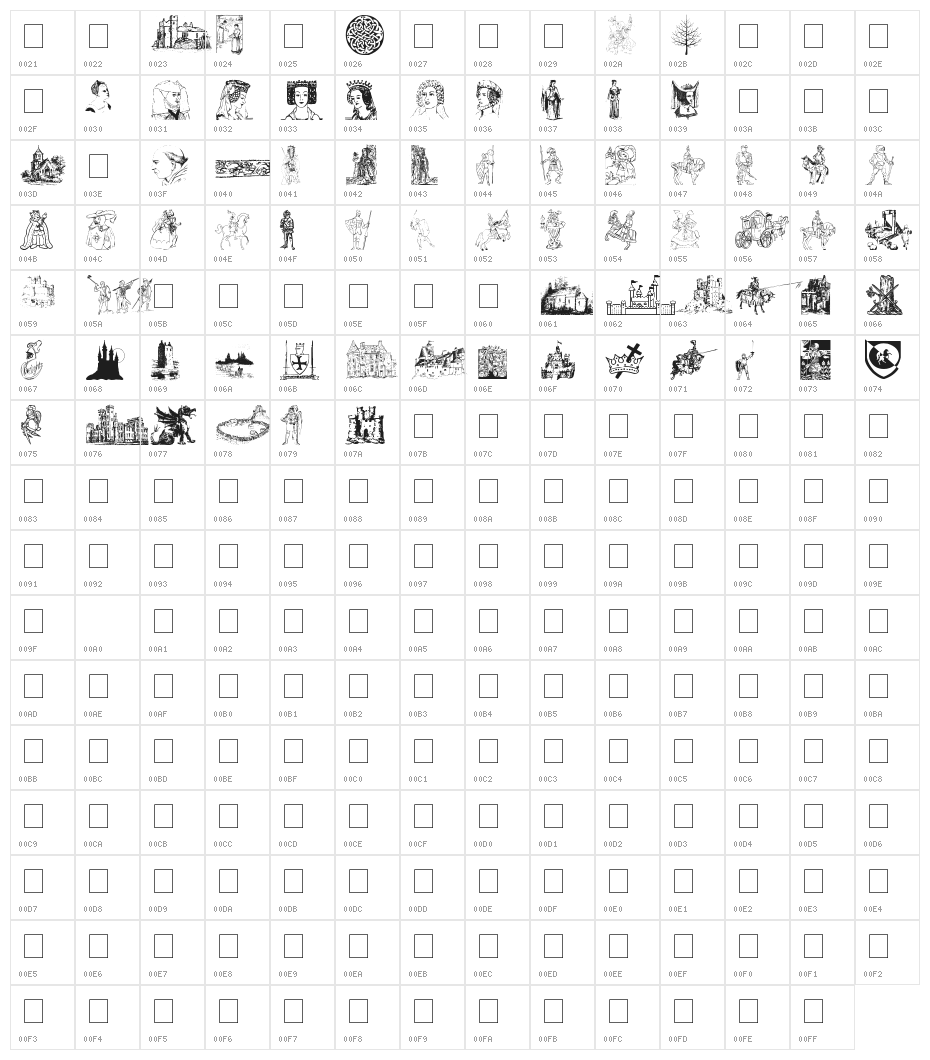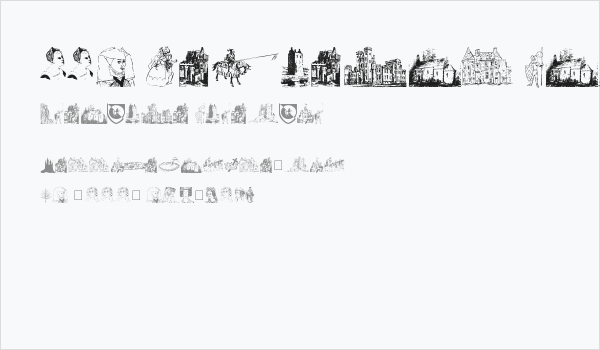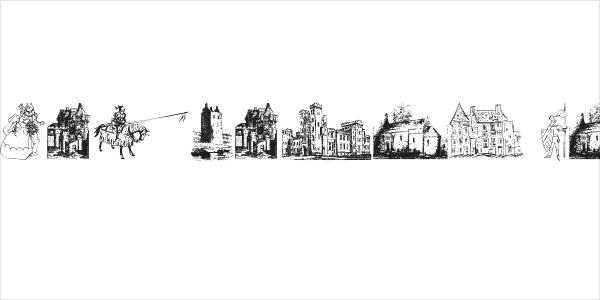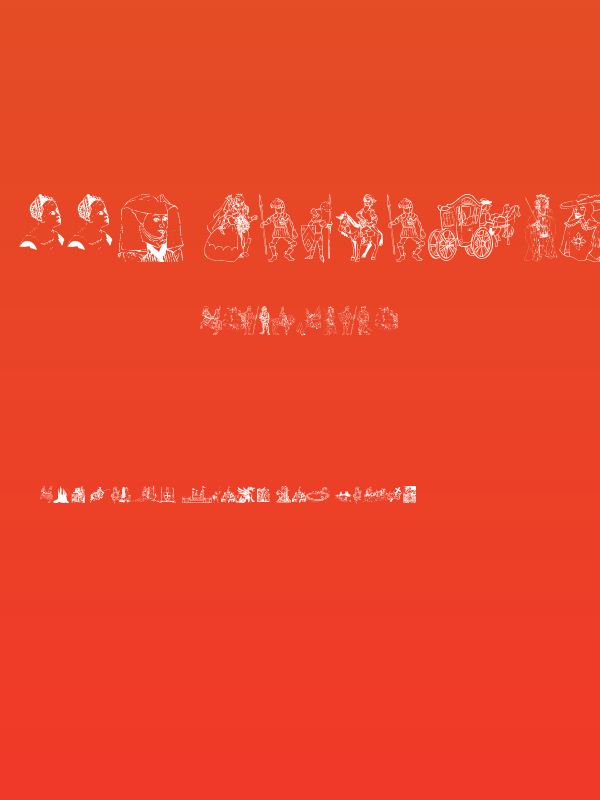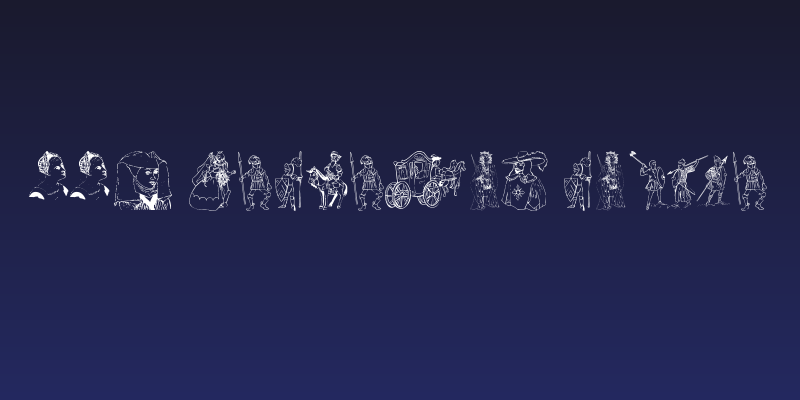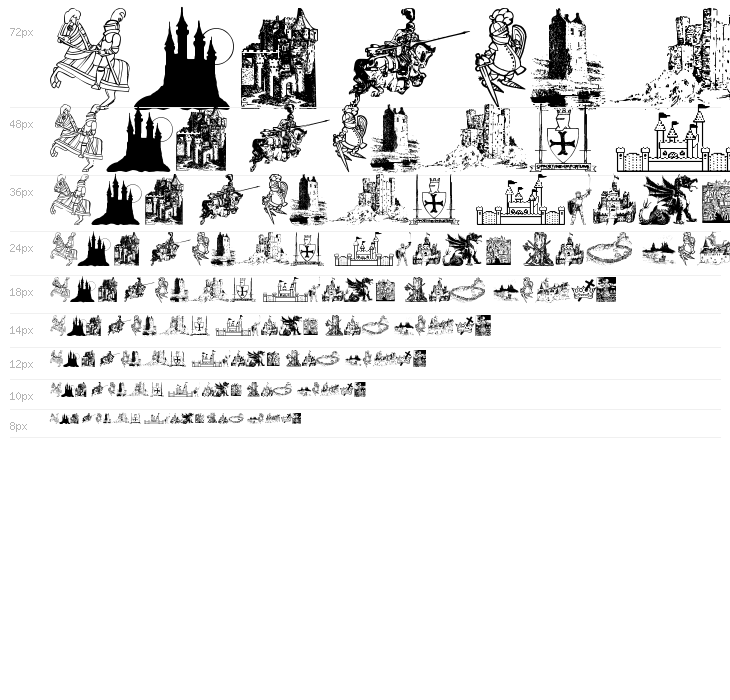
001 Medieval Daze Font
001 Medieval Daze Description
A highly decorative dingbat font featuring detailed medieval-themed illustrations, including knights, royalty, castles, coats of arms, and various period scenes and objects. The glyphs are intricate, black-and-white line drawings with a strong narrative and historical character.
| Overall Style | Decorative, Vintage, Thematic |
| Use Case | Illustrative elements, Themed graphics, Decorative borders |
| Proposed Projects | Book covers, event posters, invitations, educational materials, themed party decor, scrapbooking, and historical presentations. |